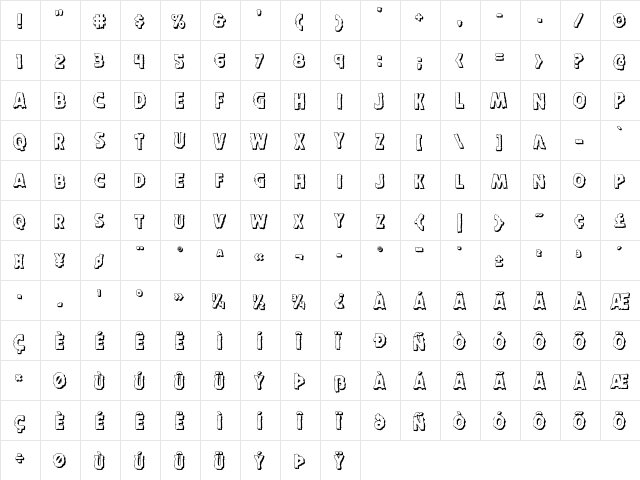
Horroween 3D Regular
Design Context for Horroween 3D Typeface
Horroween 3D is a composed and adaptable typeface that performs quietly and consistently across a wide range of design contexts.